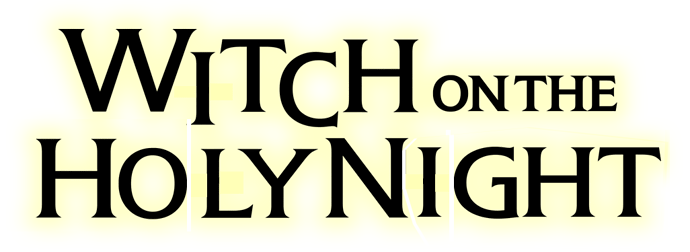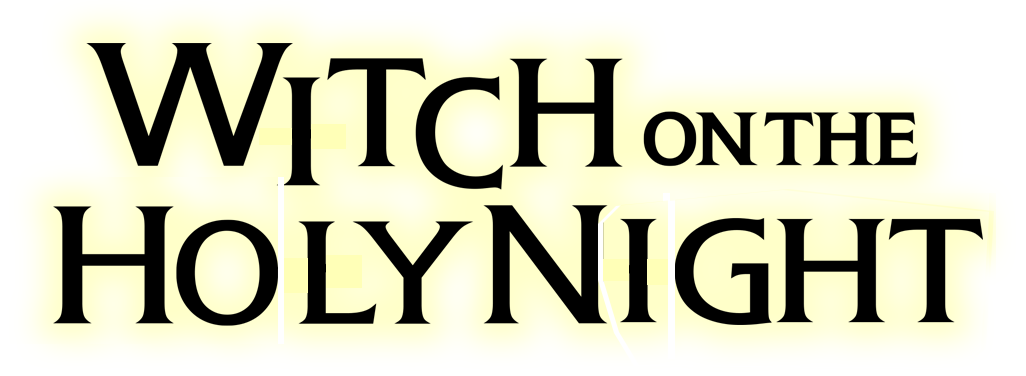
Does anyone have any idea as to what is used font is used in this logo? Or similar?
Silverado is close, but not identical. Best I can do.
I need to dust off my copy of Friz Quadrata, that’s a good looking typeface.
It’s one of those typefaces that was overused in the 1980s and went out of style because of it. Today, few people even remember Friz Quadrata, so maybe it’s poised for a comeback.
In the start of my GD career I got confused the hell out of Friz Quadrata and Albertus. Funny enough both were handsome fonts.